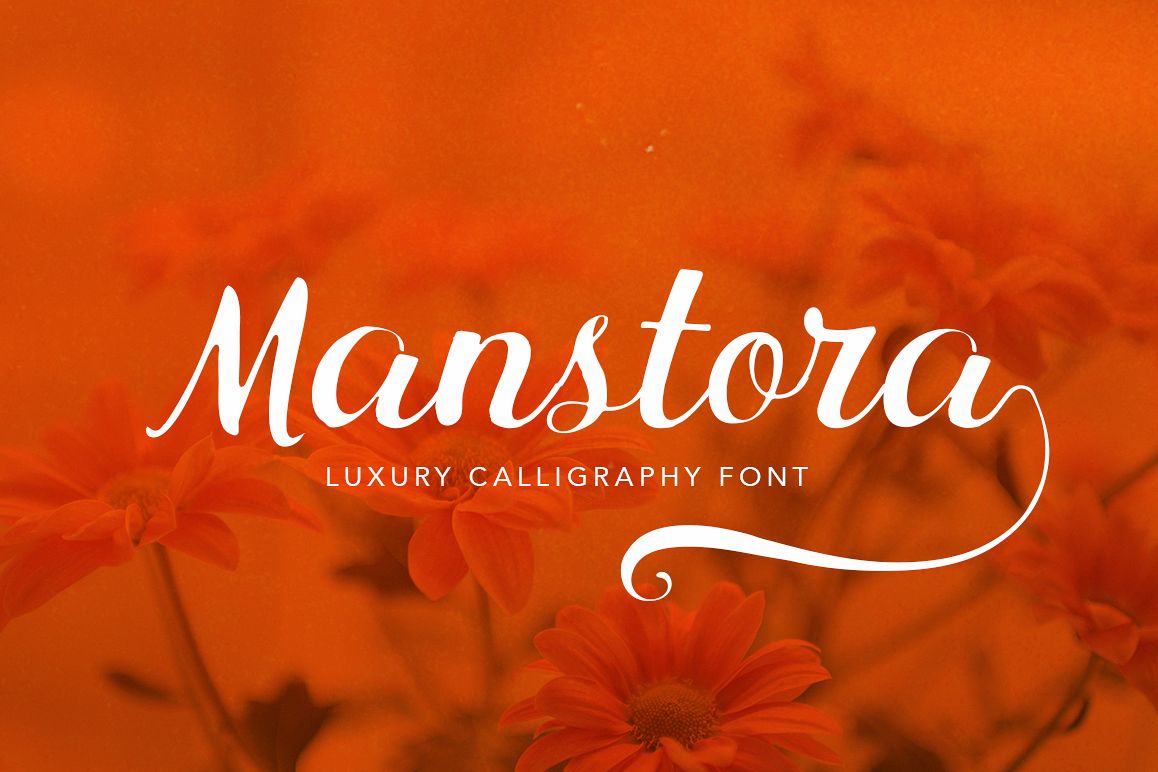
Manstora Luxury
Manstora Luxury is a modern calligraphy font, elegant and pretty with swashes. Can used for various purposes. such as the title, signature, logo, wedding invitations, letterhead, signage, labels, newsletters, posters, badges, etc. Features Open type feature, including initial and terminal letters,ligatures and International support for most Western Languages is included.